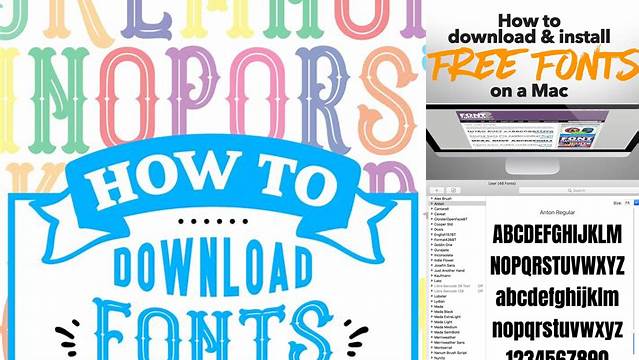
Free Fonts For Mac: Download Now!
Finding the perfect font can be a game-changer for your projects. Whether you're designing a sleek website, crafting eye-catching marketing materials, or simply want to jazz up your documents, having a great selection of free fonts for Mac is essential. In this article, we'll dive into the world of free fonts, exploring where to find them, how to install them, and tips for using them effectively. So, let's get started and discover the amazing resources available to you!
1. Best Websites to Download Free Fonts for Mac
When it comes to finding free fonts for Mac, the internet is your oyster! There are tons of websites offering a wide variety of fonts, from classic serif and sans-serif styles to more unique and decorative options. Some of the best websites include Google Fonts, DaFont, Font Squirrel, and Adobe Fonts (which offers a selection of free fonts with an Adobe account). Each of these sites has its own strengths. Google Fonts is great for web fonts and offers a huge, easy-to-browse library. DaFont is a treasure trove of user-submitted fonts, perfect for finding something quirky and unique. Font Squirrel focuses on fonts that are licensed for commercial use, so you can use them in your projects without worrying about copyright issues. And Adobe Fonts integrates seamlessly with Adobe Creative Cloud apps, making it super convenient if you're already a subscriber. When browsing these sites, be sure to pay attention to the license information for each font to ensure you're using it in accordance with the terms.
5. Best Sans-Serif Free Fonts for Mac
Sans-serif fonts are a popular choice for modern designs, and there are plenty of excellent free fonts for Mac in this category. Some top picks include Roboto, Open Sans, Lato, and Montserrat. Roboto is a versatile font that works well for both headings and body text. Open Sans is known for its readability and clean design, making it a great choice for websites and apps. Lato is a stylish sans-serif font that adds a touch of elegance to any project. Montserrat is a geometric sans-serif font that's perfect for creating a bold and modern look. These fonts are all available on Google Fonts and are easy to install on your Mac. Experiment with different sans-serif fonts to find the perfect one for your project.
6. Top Serif Free Fonts for Mac
Serif fonts exude a classic and timeless appeal, making them ideal for projects that require a touch of tradition. When seeking free fonts for Mac, consider options like Playfair Display, Merriweather, and Lora. Playfair Display is an elegant serif font that's perfect for headings and titles. Merriweather is designed for readability on screens, making it a great choice for body text. Lora is a well-balanced serif font with a contemporary feel. These fonts can add a touch of sophistication to your designs and are all available for free download. Mix and match serif fonts with sans-serif fonts to create visually appealing typography.
7. Decorative Free Fonts for Mac
For projects that need a unique and eye-catching touch, decorative fonts are the way to go. When hunting for free fonts for Mac, explore options like Pacifico, Lobster, and Amatic SC. Pacifico is a fun and friendly script font that's perfect for logos and branding. Lobster is a bold and retro-inspired script font that adds a touch of vintage charm. Amatic SC is a condensed sans-serif font that's great for headlines and posters. These fonts can add personality and flair to your designs, but it's important to use them sparingly to avoid overwhelming your audience.
8. Free Fonts for Web Design on Mac
When designing websites on your Mac, choosing the right fonts is crucial for readability and aesthetics. Free fonts for Mac that are optimized for web use include Open Sans, Roboto, and Lato. These fonts are available on Google Fonts and are designed to load quickly and display clearly on screens. When using fonts on the web, it's important to consider factors like font size, line height, and letter spacing to ensure a comfortable reading experience for your visitors. Use CSS to control the appearance of your fonts and optimize them for different devices and screen sizes.
9. Best Free Fonts for Graphic Design on Mac
Graphic design projects demand fonts that are both visually appealing and highly functional. For graphic designers using Macs, free fonts for Mac such as Montserrat, Raleway, and Bebas Neue are excellent choices. Montserrat is a versatile geometric sans-serif font that works well for logos, posters, and branding materials. Raleway is an elegant sans-serif font that adds a touch of sophistication to any design. Bebas Neue is a clean and modern sans-serif font that's perfect for headlines and titles. These fonts are all available for free download and can be used in a variety of graphic design applications.